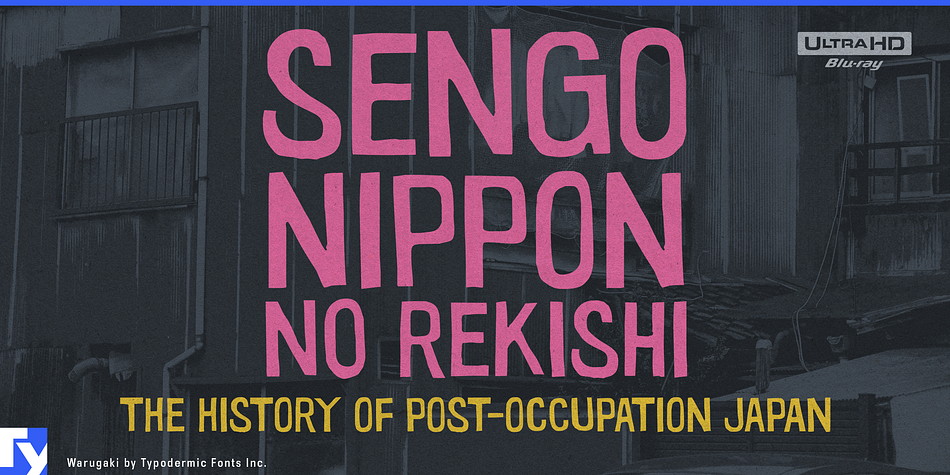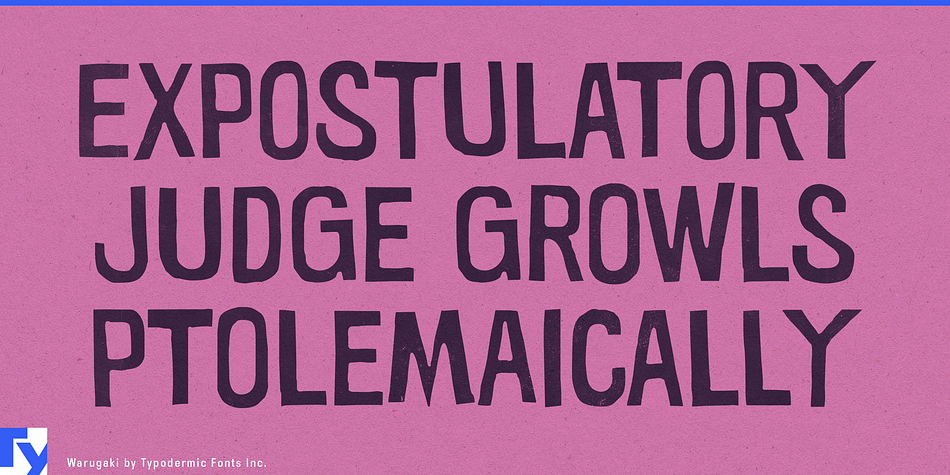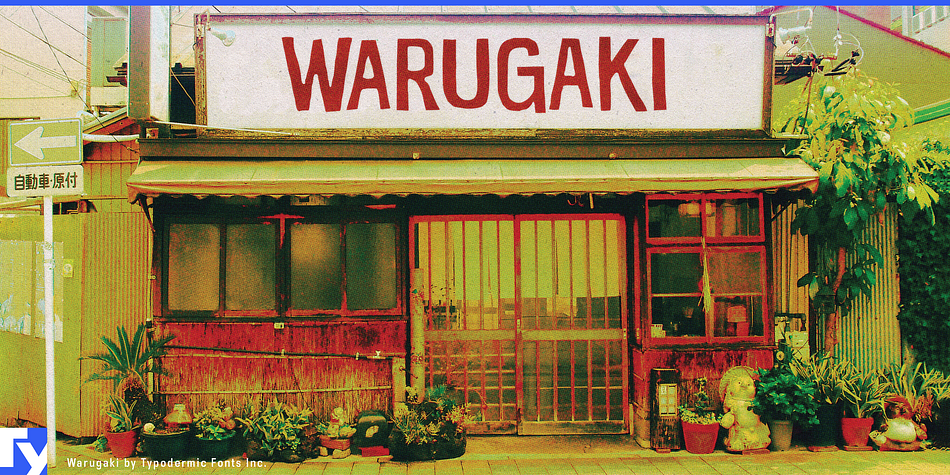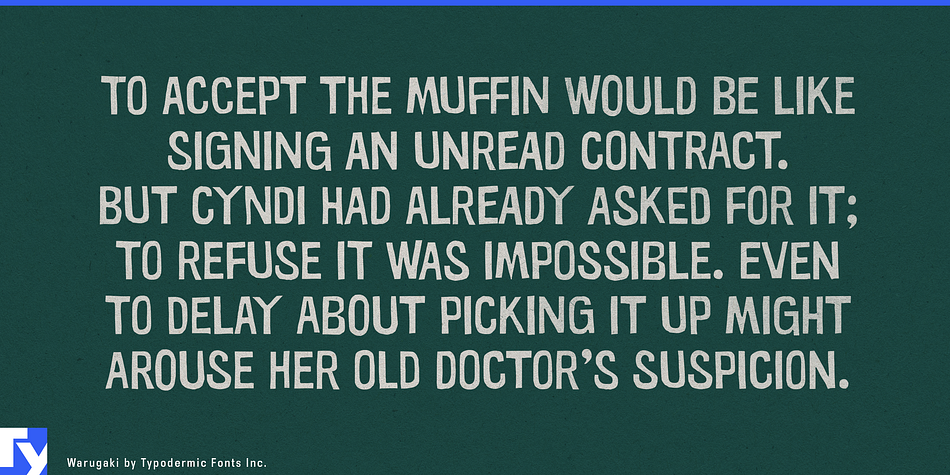
Warugaki is a grunge font published by Typodermic Fonts Inc.
Warugaki is an unkempt, disarrayed headliner influenced by mid twentieth-century Japanese design. The edge treatment is subtractive, almost like a hand-made silk screen or wax dye resist. In OpenType savvy applications, some letter combinations are substituted with custom pairs to help avoid obviously repeating letters. Warugaki also includes alternate letters in the lowercase position.